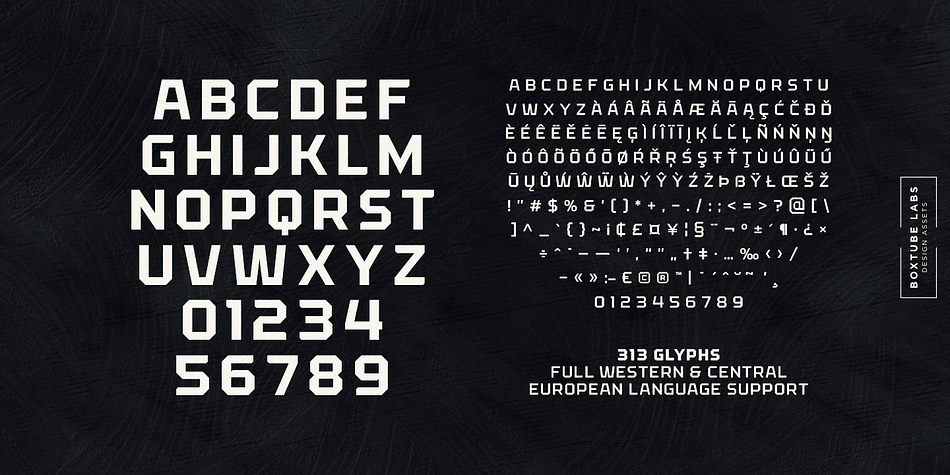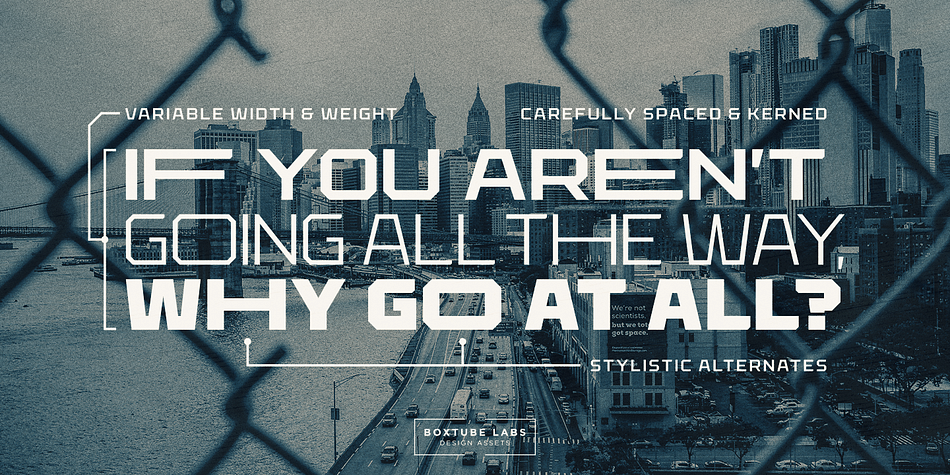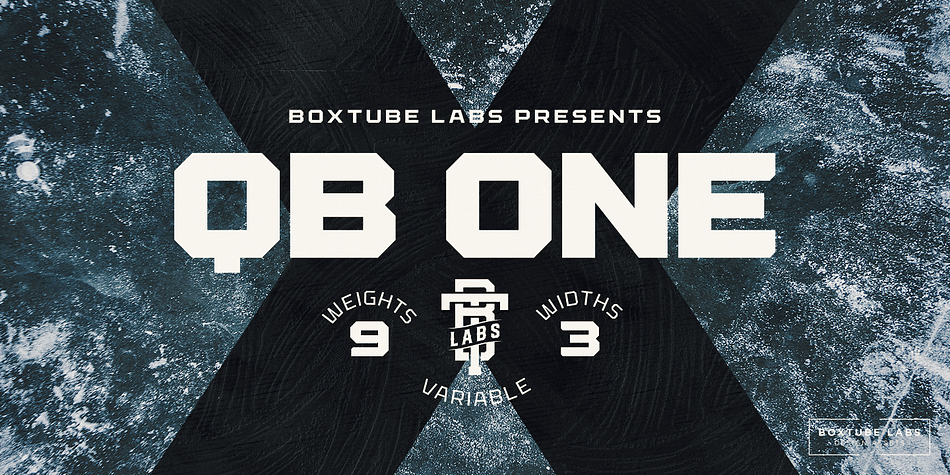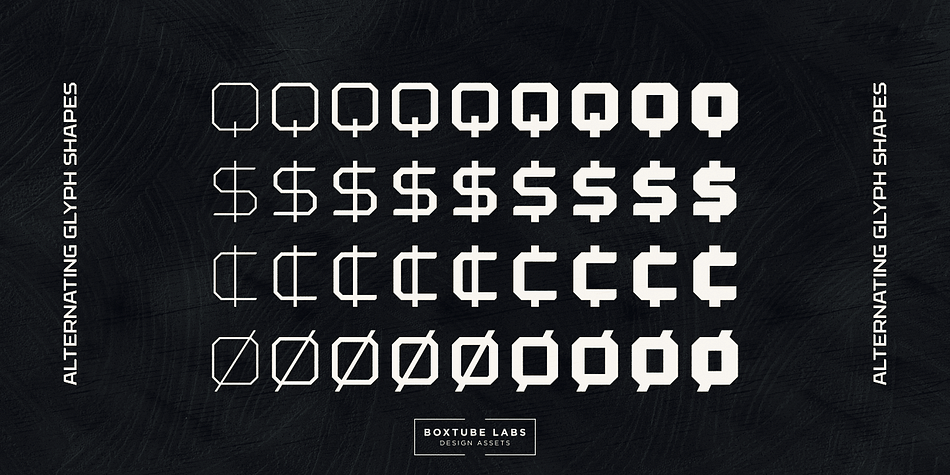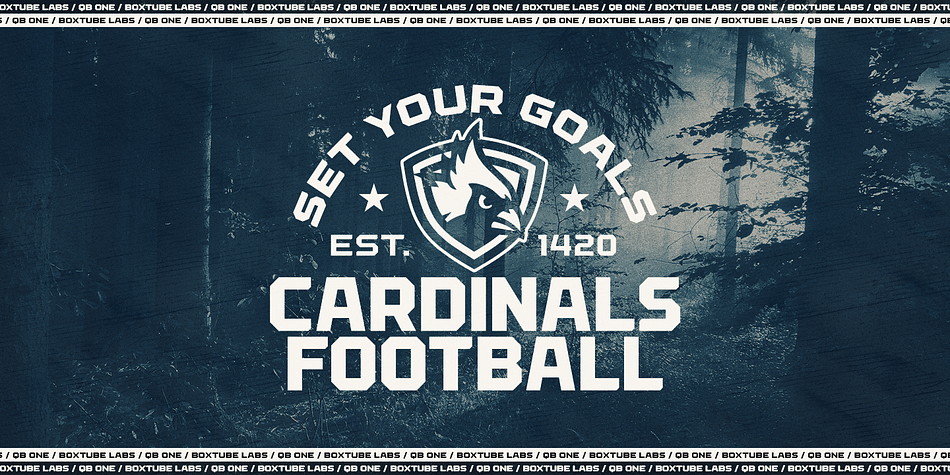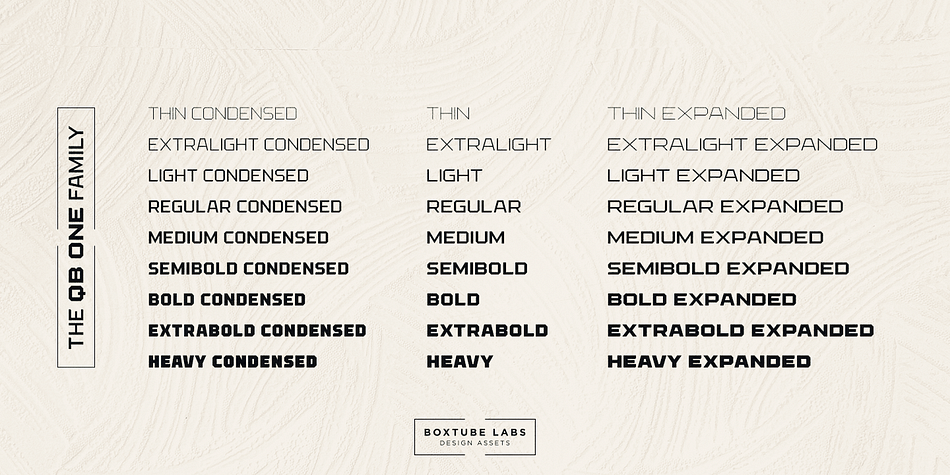
QB ONE
QB One is a display sans font family. This typeface has twenty-eight styles and was published by BoxTube Labs.
Introducing QB One - A variable block font with a unique style that stands out from the crowd.
QB One was designed to be your favorite versatile and powerful communications tool. It’s perfect for logotypes, sports branding, posters, apparel design, magazine headlines, labels and much more.
The font family features support for most Western- and Central European languages including: Afrikaants, Basque, Breton, Catalan, Danish, Dutch, English, Finnish, French, Gaelic, German, Icelandic, Indonesian, Irish, Italian, Norwegian, Portuguese, Sami, Spanish, Swahili and Swedish.